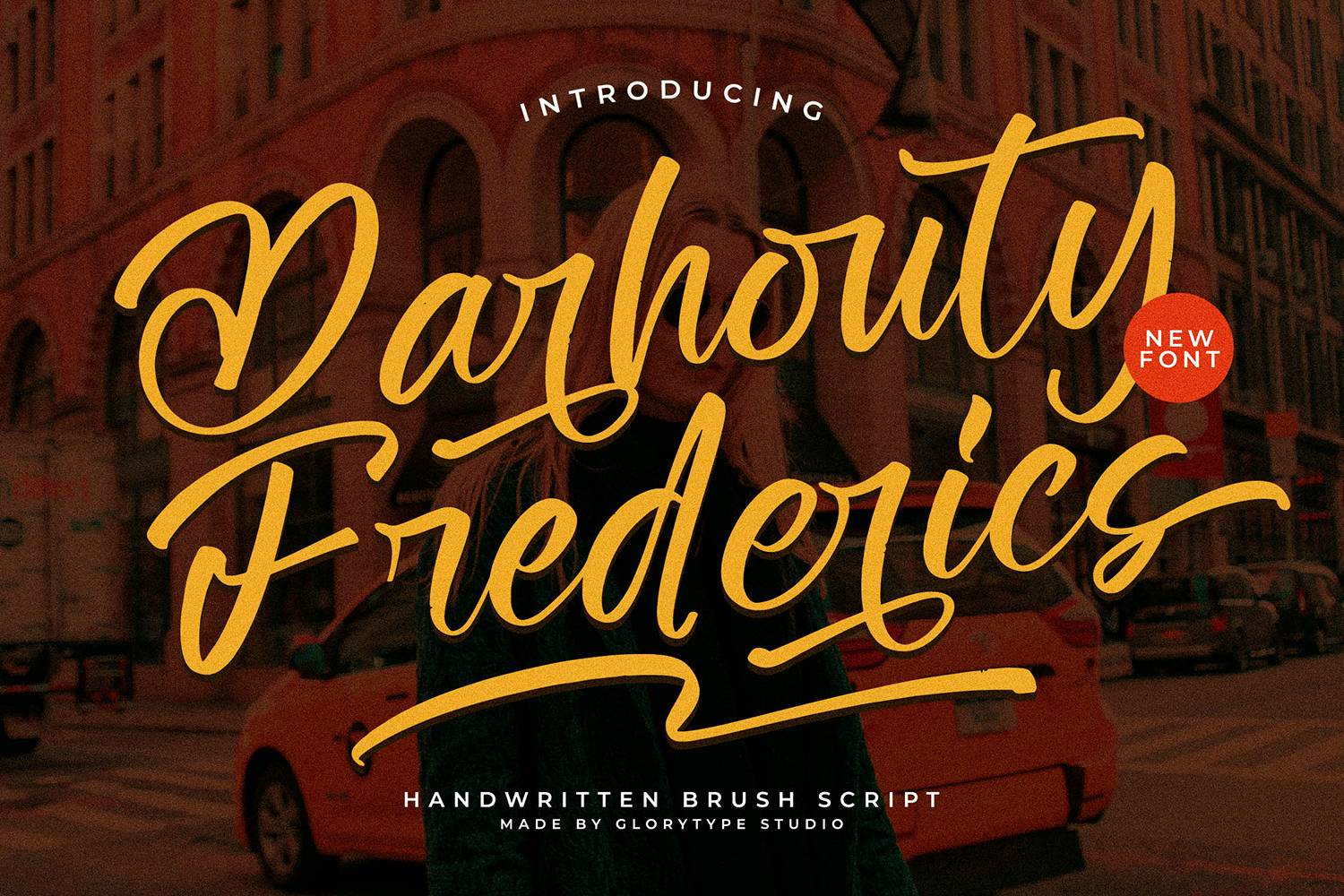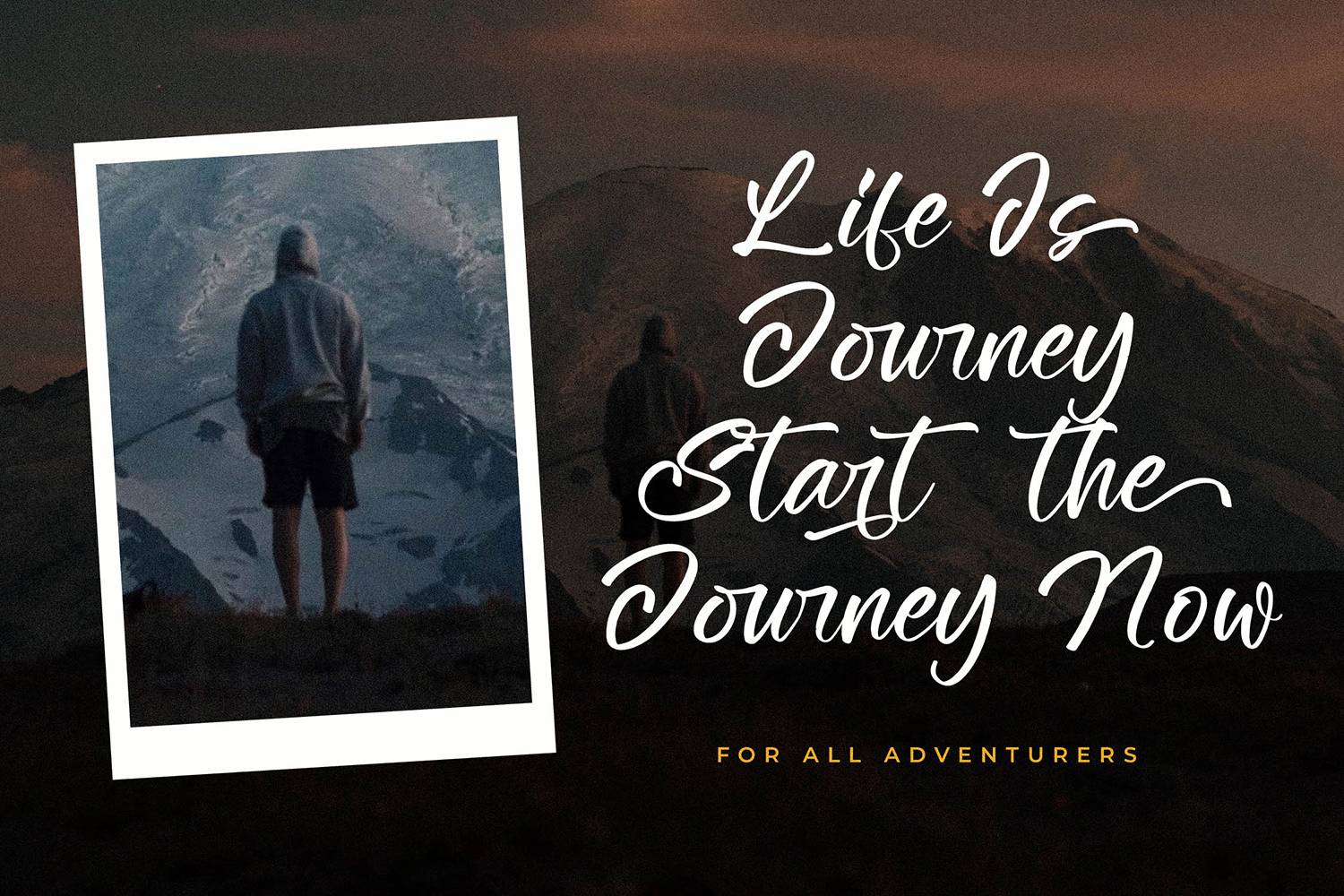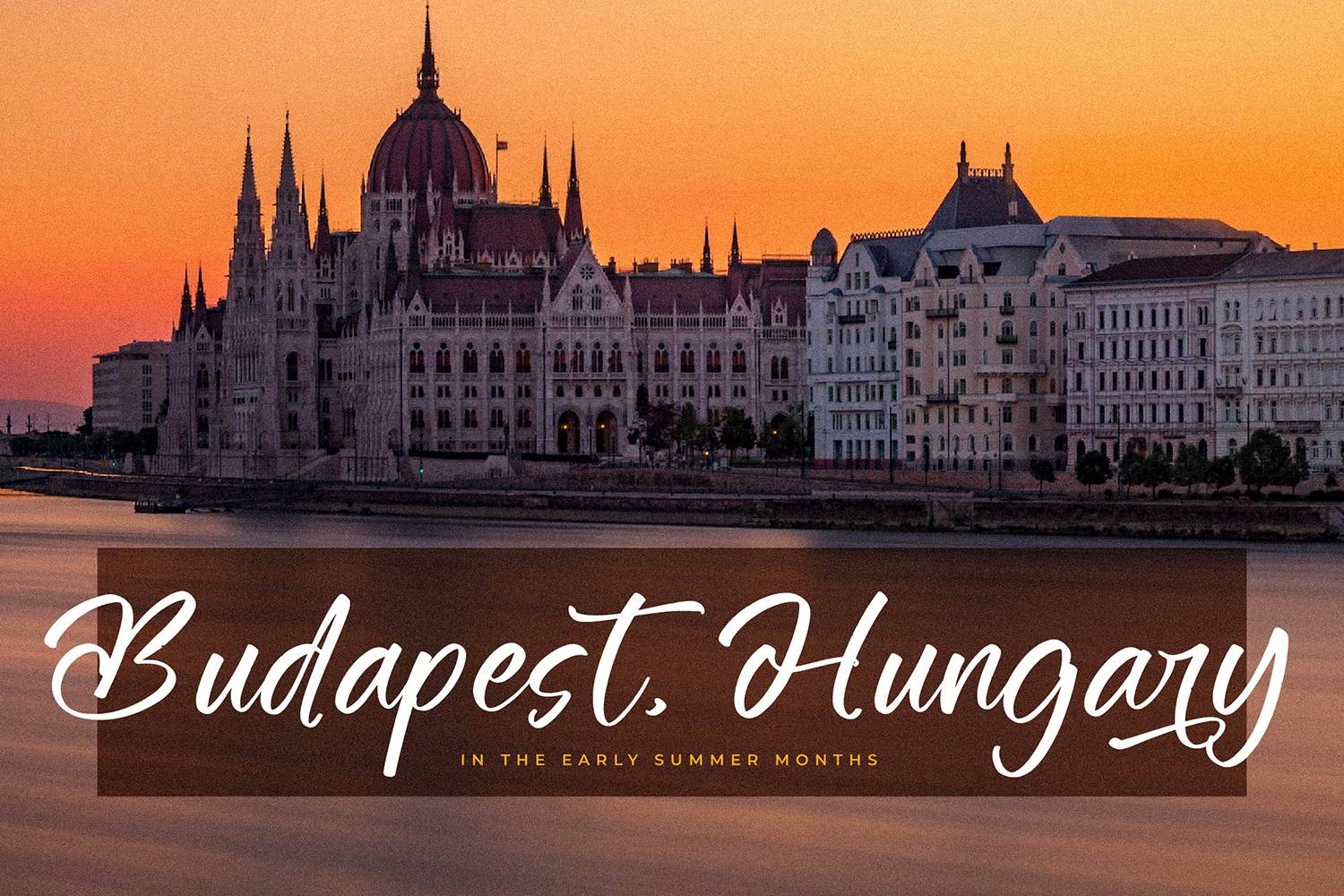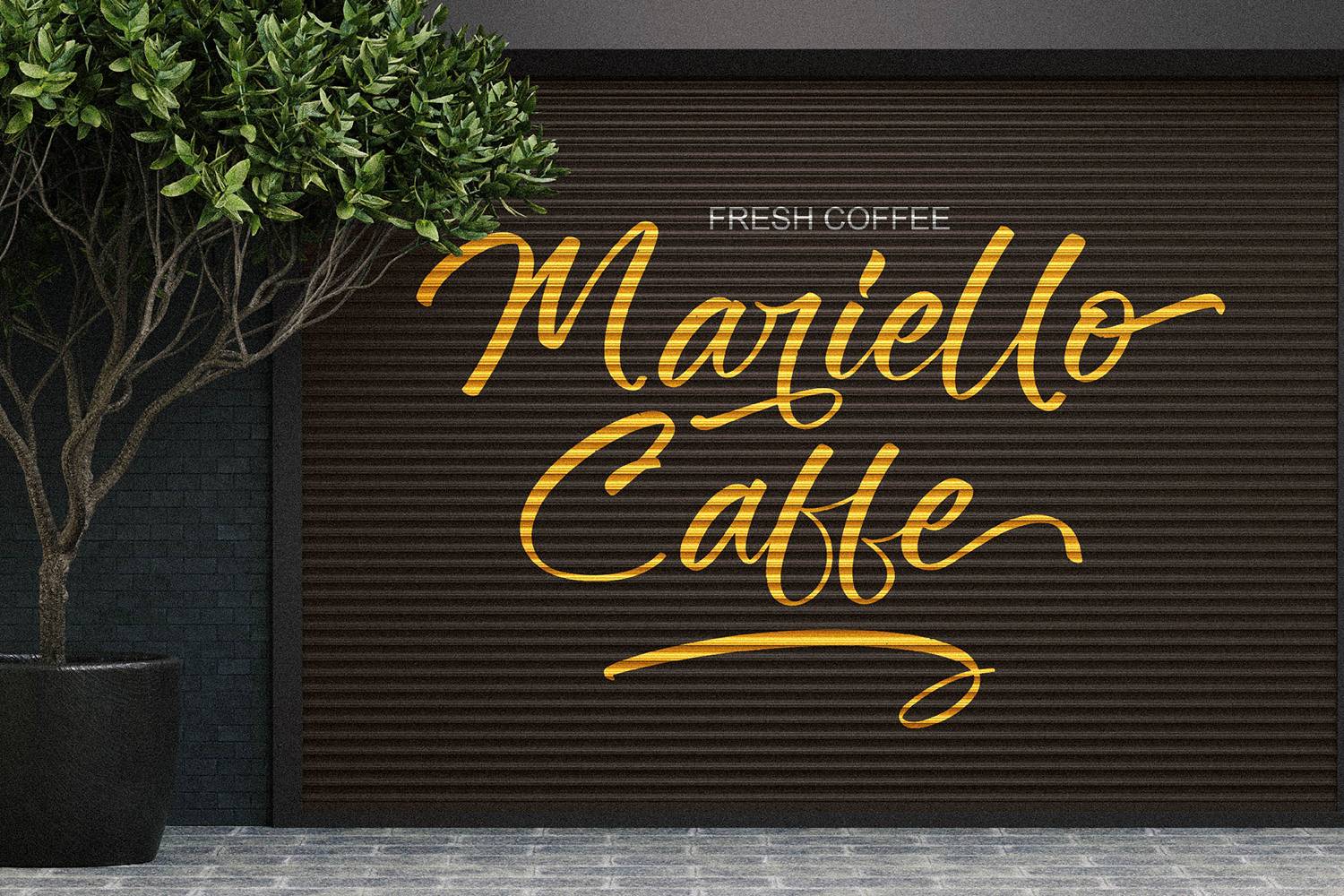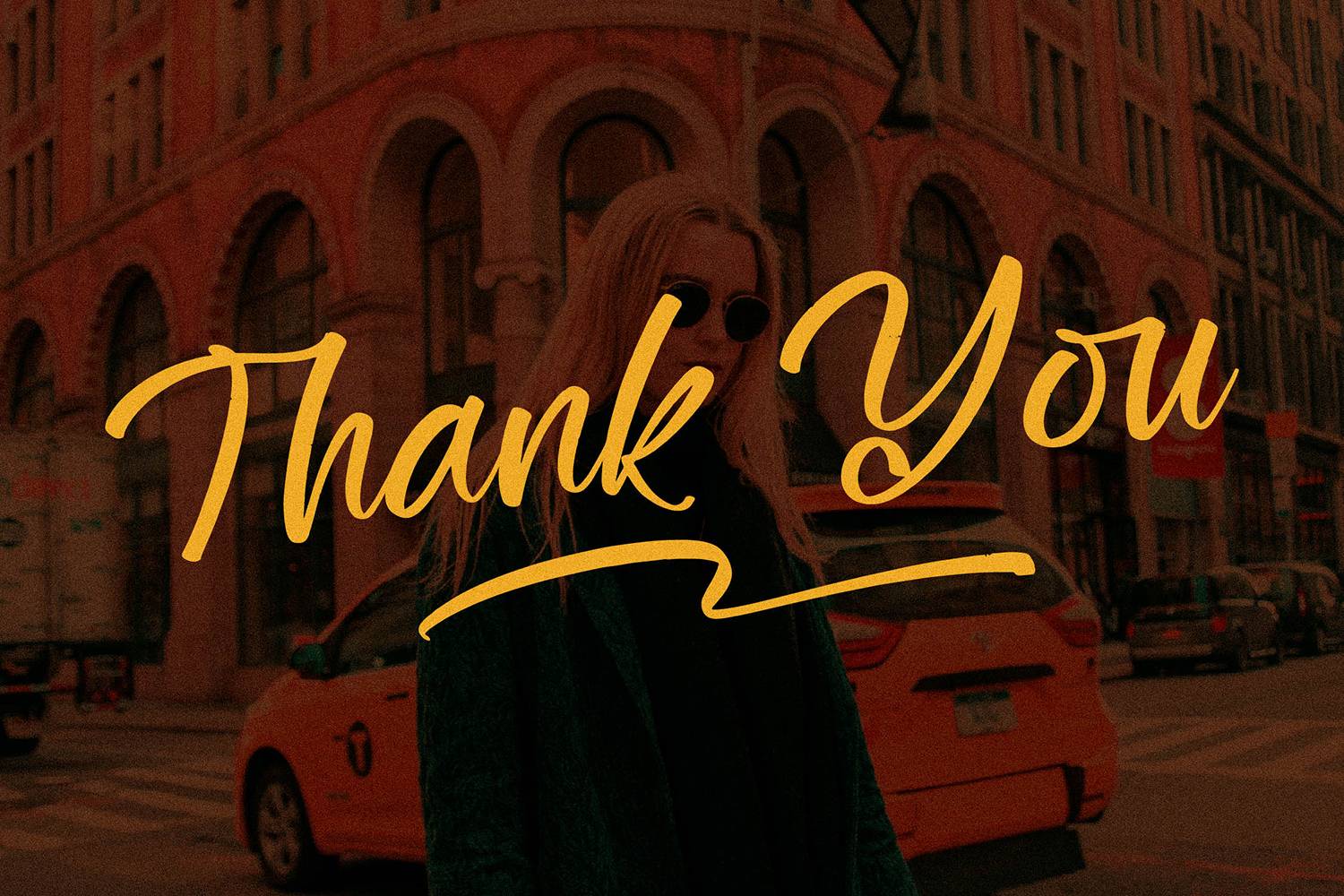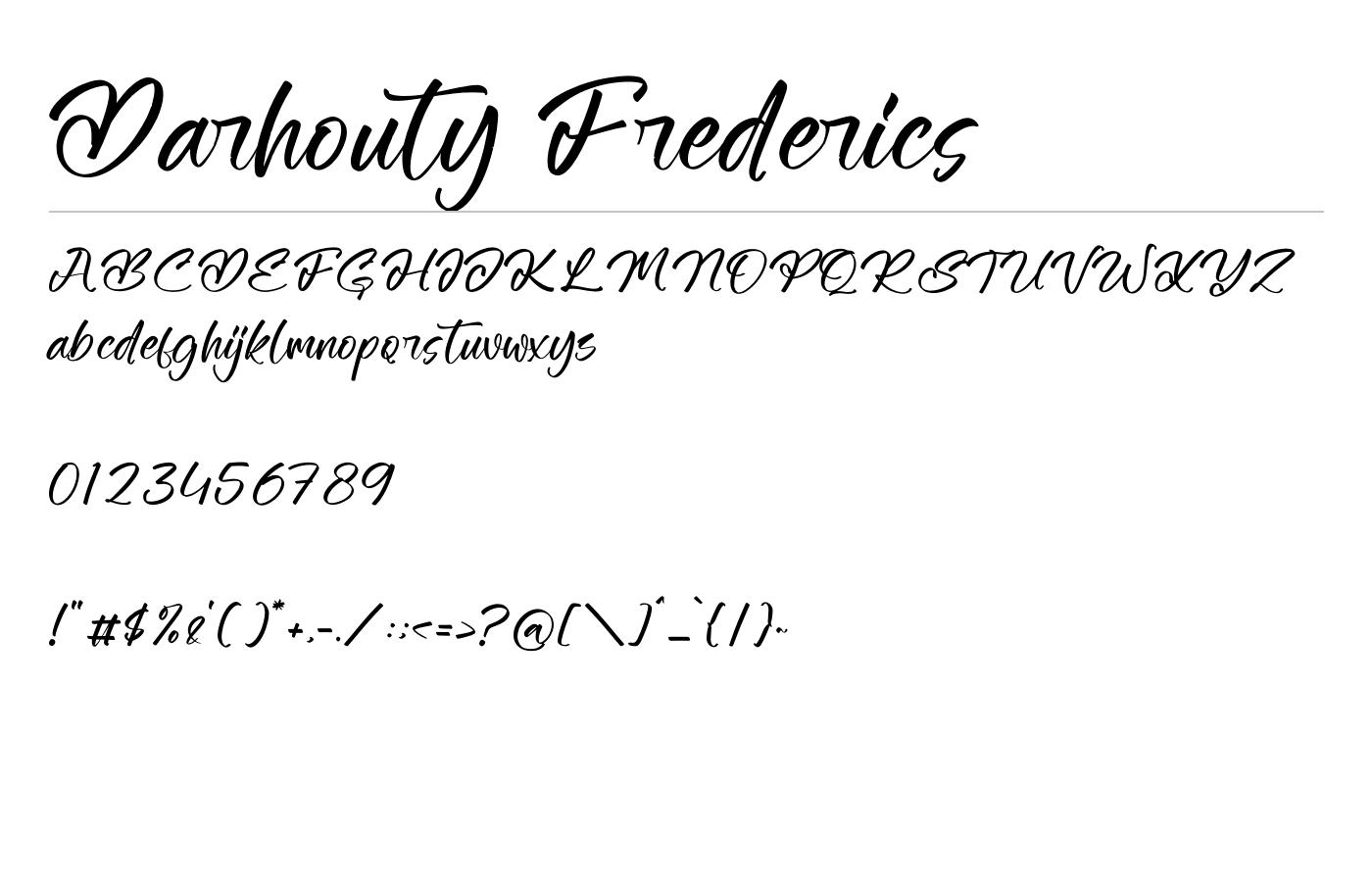
Darhouty Frederics is an elegant script font with a calligraphic style, featuring smooth, flowing strokes and a medium contrast that brings a graceful, handcrafted feel. Its delicate, slightly condensed letterforms and connected cursive characters make it ideal for adding a personal and sophisticated touch to invitations, branding, and editorial headlines. This font works well where a refined yet approachable look is desired, combining both charm and readability.
Darhouty Frederics Font
About Darhouty Frederics Font